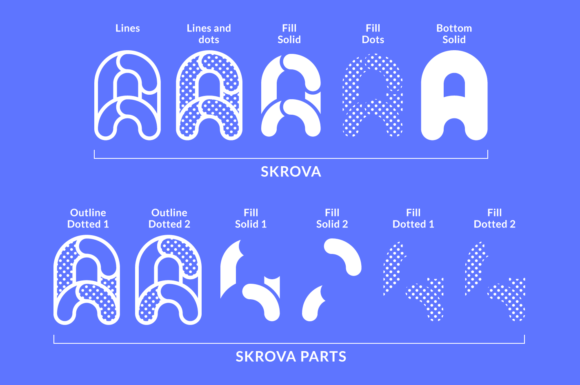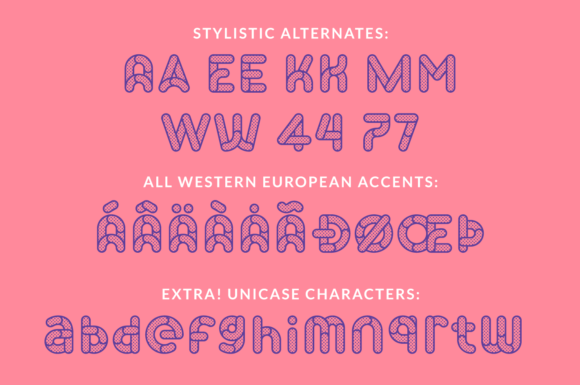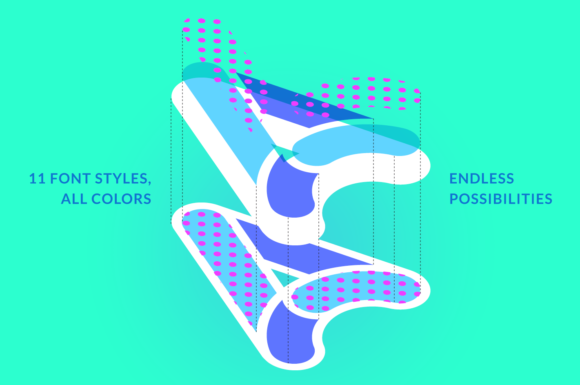
Introduction to Skrova Font
Skrova is a beautifully rounded display font that consists of several layers.
Overlap the different font styles, and create extrordinary designs .
Key Features of Skrova Font
Why Choose Skrova Font?